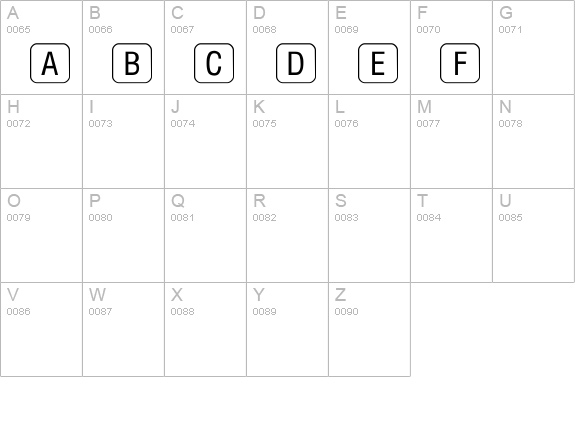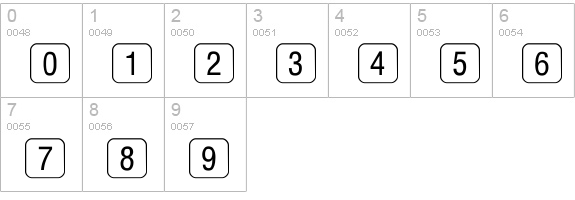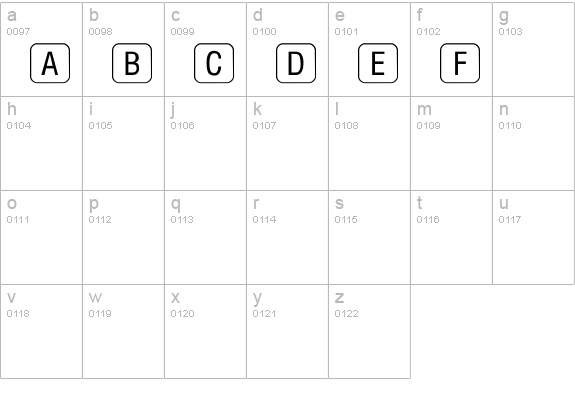
RRKeyLettersLimited-Normal Font Details
RRKeyLettersLimited-Normal is the standard, neutral variant in the RRKeyLettersLimited typeface family \xE2\x80\x94 well suited to general body text, paragraphs, and standard typographic work.
RRKeyLettersLimited-Normal font is a versatile and modern typeface that is perfect for various design projects. Its clean and sleek letterforms make it suitable for both headings and body text. This font exudes a professional and contemporary vibe, making it ideal for branding, advertising, and editorial design. What sets RRKeyLettersLimited-Normal font apart is its unique style that strikes the perfect balance between sophistication and playfulness. The carefully crafted letter shapes and spacing ensure optimal legibility, making your text easy to read across different platforms and mediums. Best of all, RRKeyLettersLimited-Normal font is available for free download at FontsMarket.com. Whether you're a designer, student, or hobbyist, you can access this high-quality font without any cost. Elevate your design projects with RRKeyLettersLimited-Normal font and make a lasting impression on your audience.